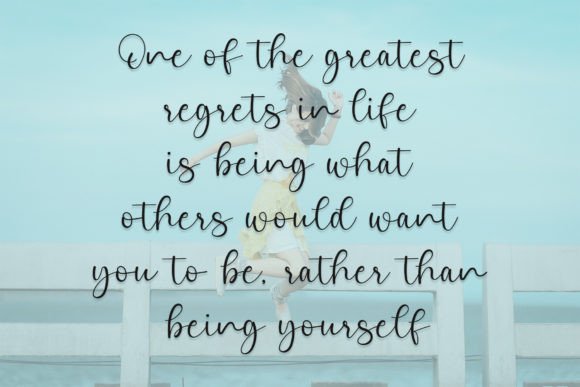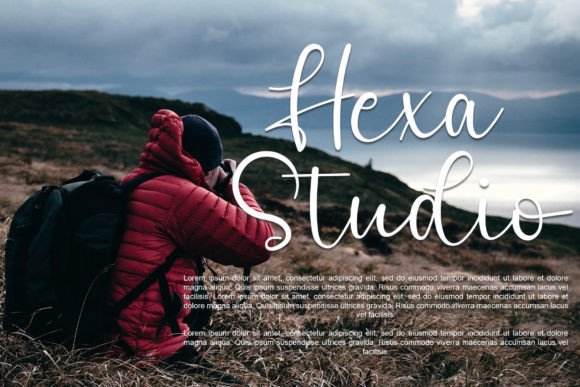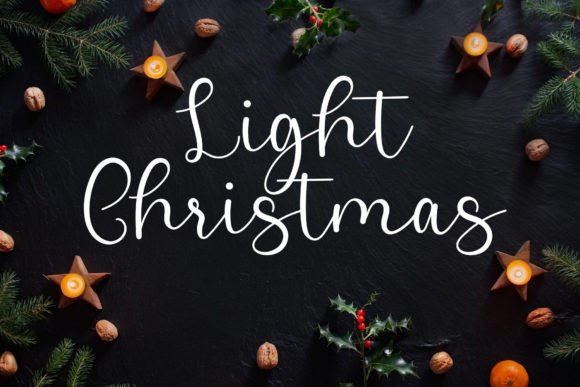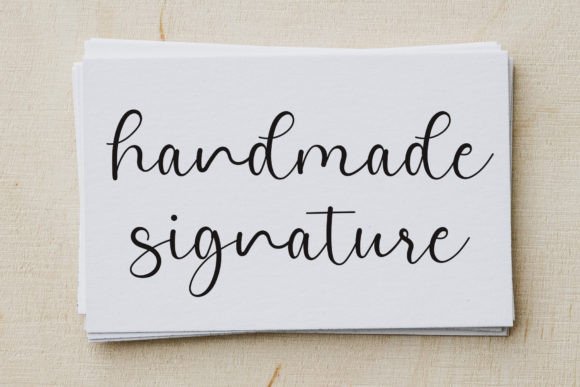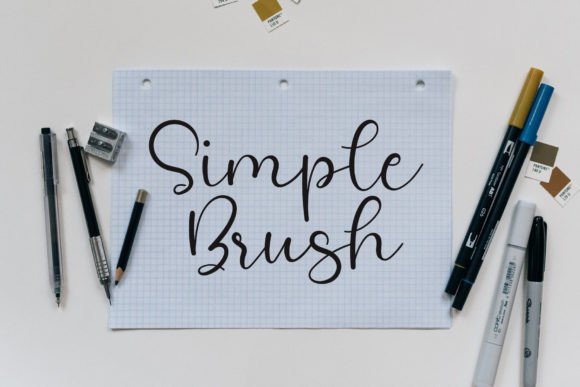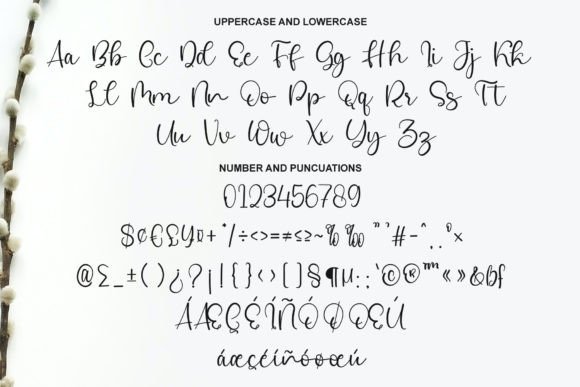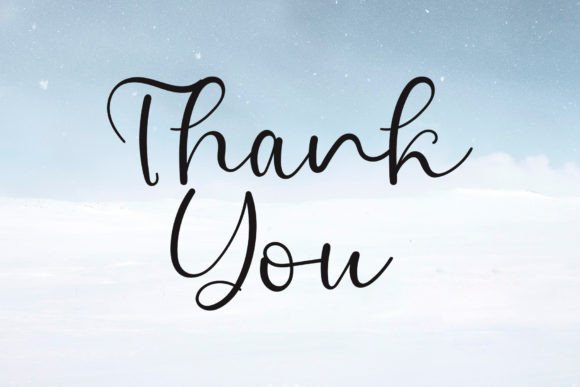
Winter Planner Font
About Winter Planner Font
Winter Planner font is a delicate, elegant, and flowing handwritten typeface that brings sophistication and grace to your creative work. Its characters give it a appeal, making it an excellent choice for a wide range of design projects.
Delicate and Elegant Design
The charm of Winter Planner font lies in its smooth, flowing strokes that mimic natural handwriting. This font captures an elegant and refined style, offering a unique softness to your projects. Its well-balanced letterforms ensure while a handcrafted aesthetic.
Versatile Uses for Winter Planner Fot
This font is highly versatile  for:
• Wedding invitations and event stationery
• Branding and logos
• Social media graphics and marketing materials
• Personal letters and quotes
Its elegant and flowing style adapts well to both formal and casual projects, making it a favorite for designers looking for sophistication.
Adding Timeless Beauty to Your Projects
By using Winter Planner fon, you can add a refined and touch to your designs. The handwritten flow creates an emotional connection, enhancing the overall appeal. This font’s balance between elegance and makes it ideal for conveying warmth and style.
Summary
In summary, Winter Planner fot is a delicate and elegant  perfect for invitations, branding, social media, and more. Its flowing design and balanced characters make it a versatile choice for many creative projects.